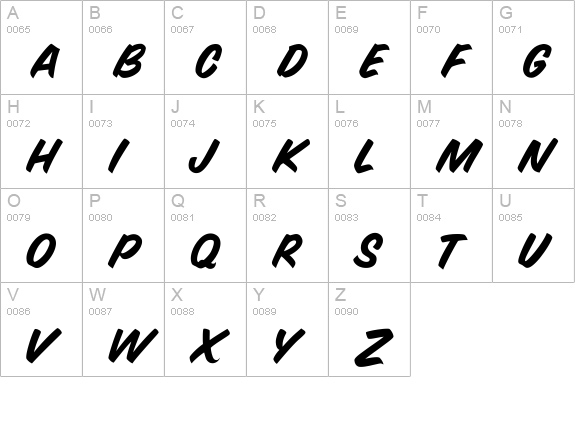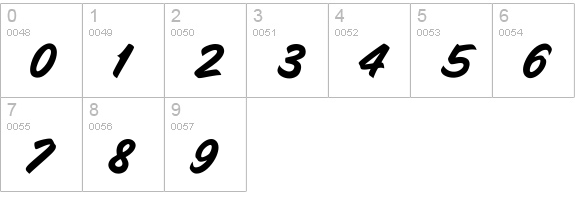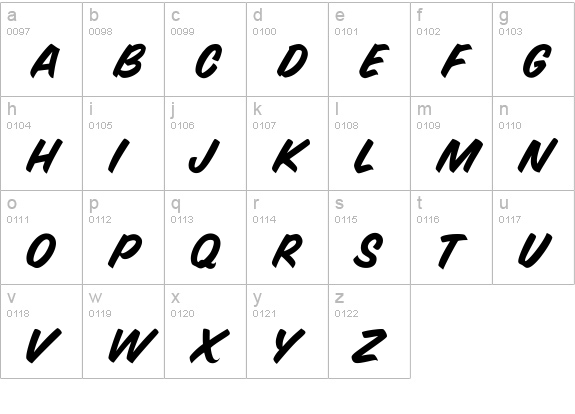
SnyderSpeed Font Details
Introducing SnyderSpeed, a bold and dynamic font that embodies the essence of speed, power, and modernity. With its sleek lines and confident strokes, this font is designed to make a statement and capture attention. Whether used for headlines, logos, or any design that requires a touch of edginess, SnyderSpeed is sure to leave a lasting impression. But what sets SnyderSpeed apart from other fonts is that it is not only visually stunning, but it is also available for free! Yes, you read that right – you can download this incredible font completely free of charge at FontsMarket.com. We believe that creativity should never be limited by financial constraints, and that's why we're thrilled to offer SnyderSpeed as a freely accessible resource for designers, artists, and anyone in need of a font that exudes power and speed. SnyderSpeed is meticulously crafted with precision and attention to detail, ensuring that each letter and character is perfectly balanced and visually captivating. Its versatility allows it to adapt seamlessly to a variety of design projects, from posters and advertisements to branding materials and websites. Its bold presence demands attention, making it the perfect choice for capturing the essence of speed, energy, and modernity. So why wait? Experience the power of SnyderSpeed for yourself and unleash your creativity with this extraordinary font. Download it for free today at FontsMarket.com and elevate your designs to new heights. Unleash the speed, captivate the audience, and make a bold statement with SnyderSpeed – the font that combines style, power, and accessibility.